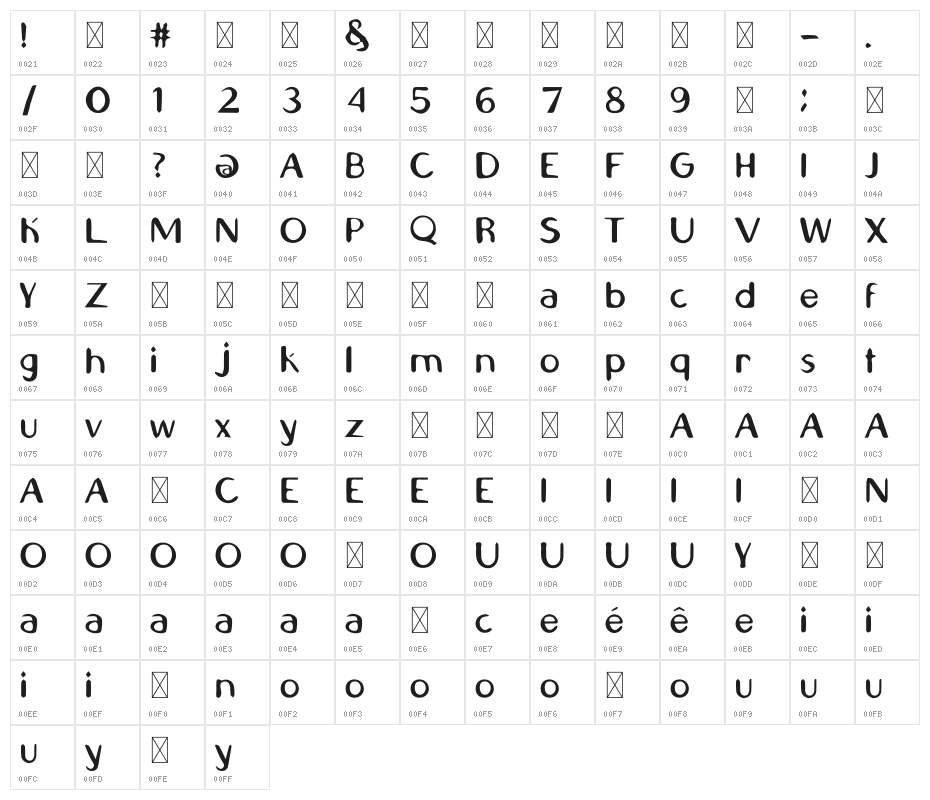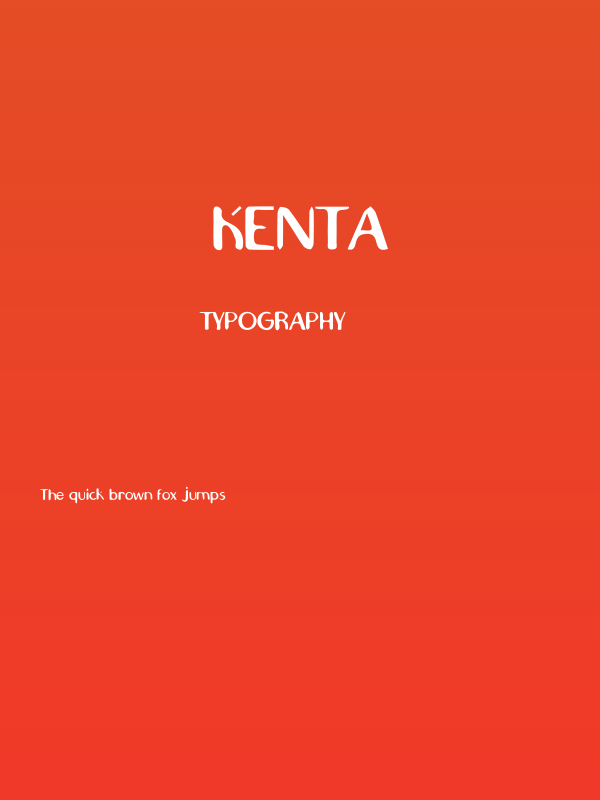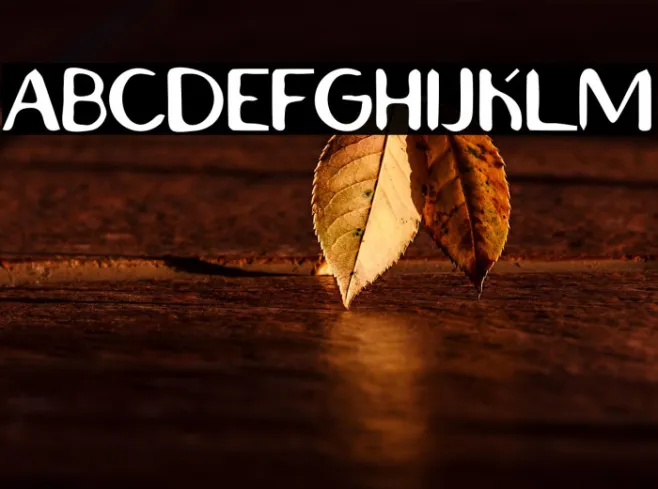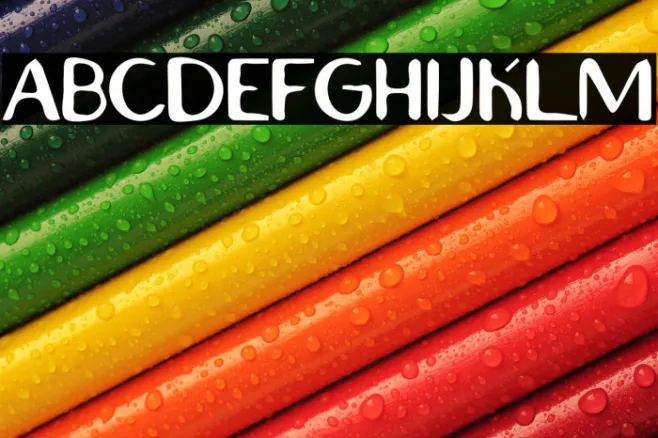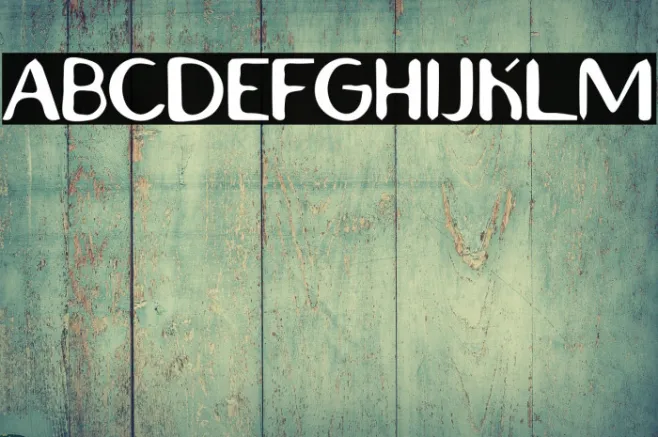
Kenta Font
Kenta Description
This font features a unique and artistic design with a playful and organic feel. The characters are bold and have a hand-drawn appearance, with varying stroke thicknesses that add a dynamic quality. The uppercase letters are slightly wider, while the lowercase letters maintain a consistent height, creating a harmonious balance. The numbers and special characters follow the same stylistic approach, ensuring uniformity across the font. This font's distinctive style makes it ideal for creative projects that require a touch of whimsy and individuality.
| Overall Style | Artistic, Playful |
| Proposed Projects | Perfect for children's books, creative posters, artistic branding, and playful packaging designs. |